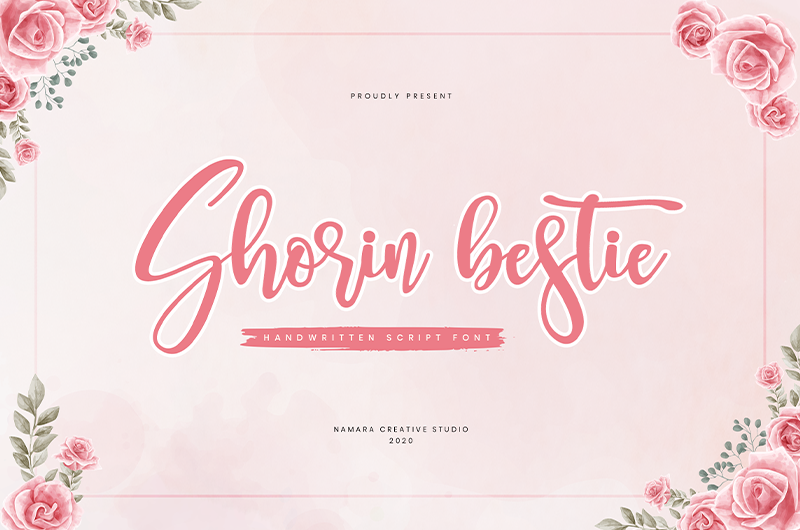
Font name: | Shorin bestie |
Author: | Namara Creative Studio |
Note by Namara Creative Studio | |
Charming handwritten script font with varying of start and end swashes, character alternates and unique symbol. It looks stunning on wedding invitations, thank you cards, quotes, greeting cards, logos, business cards and every other design which needs a handwritten touch. By installing or using this font, you are agree to the Product Usage Agreement: - This font is PERSONAL USE ONLY. NO COMMERCIAL USE ALLOWED! - Link to purchase commercial license, https://onedsgn.com/product/shorin-bestie/ - If you need a custom license please contact us at namaracreativestudio@gmail.com - Any donation are very appreciated. Paypal Link for donation : paypal.me/namaracreativestudio |